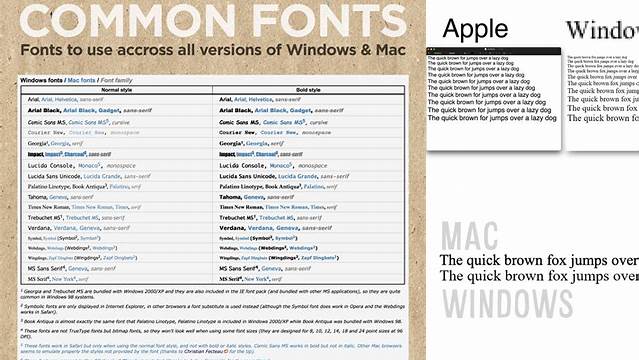
Mac Vs. Windows: Common Fonts For Seamless Design
Hey guys, ever found yourself wrestling with font compatibility issues when switching between a Mac and a Windows machine? It's a common headache, especially for designers and anyone who needs their documents to look consistent across different platforms. Fear not! We're diving deep into the world of common fonts between Mac and Windows, ensuring your text always looks its best, no matter where you open it. Let's break down the essential fonts that bridge the gap and keep your designs looking sharp, no matter the operating system.
Why Font Compatibility Matters
So, why is font compatibility such a big deal, anyway? Imagine you're crafting a stunning presentation on your Mac, meticulously choosing the perfect font to convey your message. You save it, transfer it to a Windows computer, and… bam! The font has been swapped out for something else. The formatting is off, the headings look wrong, and your carefully curated design is a shadow of its former self. It's a total buzzkill, right? This is where understanding common fonts between Mac and Windows becomes super important. It's all about ensuring that the fonts you use are available on both operating systems, guaranteeing your documents and designs appear as intended, no matter the platform. Think of it as a secret weapon for consistent design, avoiding those awkward font substitutions that can disrupt your creative flow.
Font substitutions happen when a computer can't find the specific font used in a document. Instead, it'll replace it with a default font, which usually results in the text looking different. This can lead to a cascade of formatting issues. Spacing might be off, line breaks might change, and the overall aesthetic of your work can be compromised. Using common fonts between Mac and Windows eliminates this problem because both operating systems have these fonts pre-installed or readily available, reducing the likelihood of your carefully crafted design being butchered by font substitutions. This is especially vital for projects that involve collaboration across different platforms, making your documents universally accessible and visually consistent. So, whether you're a graphic designer, a student, or just someone who wants their documents to look great, understanding font compatibility is a key skill.
Moreover, font compatibility extends beyond just aesthetics. It affects readability and the overall user experience. When fonts change unexpectedly, it can impact the way information is presented, potentially confusing readers or diluting the impact of your message. This is particularly critical for professional documents, marketing materials, or any content where visual clarity is paramount. The last thing you want is for your work to appear unprofessional due to font-related issues. Therefore, choosing common fonts between Mac and Windows is a proactive step towards ensuring your content looks polished and professional, no matter where it is viewed. It's about making sure your design choices are respected and that your audience experiences your content as you intended.
The Essential Common Fonts
Alright, let's get down to the nitty-gritty and talk about the common fonts between Mac and Windows that you can rely on. These fonts are your best friends when it comes to cross-platform compatibility. They're generally pre-installed on both operating systems, meaning you're less likely to encounter font substitution issues. Here's a list of the most reliable ones:
Arial
Arial is a sans-serif font, a super versatile choice for body text, headings, and pretty much everything in between. It's a clean, modern font that's easy to read at various sizes, making it perfect for both print and digital media. This is your workhorse font, the one you can always count on. When you are looking for common fonts between Mac and Windows, Arial is usually the go-to for its wide availability and consistent appearance. Arial's clean lines and balanced proportions make it a safe bet for most design projects, ensuring that your text is always clear and legible. It's a great choice when you want a straightforward, professional look.
Times New Roman
Times New Roman, a classic serif font, is often the default choice for academic papers, reports, and other formal documents. It has serifs, which are those little strokes at the ends of the letters that help guide the eye across the page, especially in long blocks of text. If you need to ensure your text has a traditional, somewhat formal feel, then Times New Roman is great because it's one of the common fonts between Mac and Windows. Its timeless design has made it a favorite for decades, and its presence on both Macs and Windows machines means you can trust that your documents will appear as intended. If you're aiming for that professional, scholarly vibe, Times New Roman is your friend.
Courier New
Courier New is a monospace font, meaning each character takes up the same amount of horizontal space. This makes it ideal for code, typewriting simulations, and situations where you need precise alignment. If you are working with code or any text-based document requiring a typewriter feel, Courier New is included in the list of common fonts between Mac and Windows. Its distinctive look is recognizable and widely supported. Because of its monospace design, Courier New is perfect for displaying code or any text where consistent spacing is essential. Also, it is an important feature that helps developers easily spot errors in their code.
Helvetica
Helvetica, a sans-serif font known for its neutrality and legibility, is a design classic. It is considered one of the most widely used fonts in the world. While it may not be pre-installed on all Windows versions, it's usually available or easily downloadable, ensuring that it can be considered one of the common fonts between Mac and Windows. This font’s clean design makes it suitable for a wide range of applications, from logos and signage to body text. Its versatility and widespread use make it a staple for any designer's font library, and its neutral appearance ensures it won't clash with other design elements.
Verdana
Verdana, another sans-serif font, was specifically designed for on-screen readability. It has wider letterforms and generous spacing, making it great for digital content, especially at smaller sizes. Verdana’s friendly and open design helps ensure your text is easy to read on screens, and its inclusion on both Macs and Windows makes it a perfect choice to make the list of common fonts between Mac and Windows. If you need to ensure your text is readable and accessible on a variety of devices, Verdana is a great option. Its design prioritizes readability, making it ideal for websites, presentations, and any application where clarity is key. Verdana's straightforward design ensures a pleasant reading experience, even for extended periods.
Georgia
Georgia, a serif font, is also designed for on-screen readability, featuring slightly bolder strokes than Times New Roman. This is perfect for making your content easily accessible. Like Verdana, it is one of the common fonts between Mac and Windows. Its slightly bolder strokes make it easier to read on screens, while its serif design gives it a touch of formality. Georgia is a solid choice for digital documents, e-books, and websites where a balance of readability and style is required. Its design prioritizes user experience, ensuring that your text is both stylish and easy to consume.
Choosing Fonts: Best Practices
Choosing the right font is essential, but it's not just about picking from the common fonts between Mac and Windows. Here are some best practices to keep in mind:
Prioritize Legibility
First and foremost, your font should be readable. Consider the context of your document and choose a font that's easy to read at the size and on the medium it will be displayed. Bold and italics can be used to emphasize key points, but overusing them can make your text harder to read. When selecting from the options of common fonts between Mac and Windows, always prioritize fonts known for their clarity and readability, particularly for body text.
Consider Your Audience
Think about who will be reading your work and what tone you want to convey. Do you want to project formality or a more relaxed vibe? The choice of font can greatly influence these perceptions. For example, a classic serif font like Times New Roman may be appropriate for formal documents, whereas a sans-serif like Arial or Verdana can be more suitable for informal communications. Using the list of common fonts between Mac and Windows, find the font that aligns with your audience and message.
Limit Font Choices
Stick to a few fonts for consistency. Using too many different fonts can make your work look cluttered and unprofessional. Having a limited selection is better for the overall design. Choose a font for your headings, another for your body text, and maybe one for emphasis. This will create a clean and cohesive look. If you use the common fonts between Mac and Windows, you can still maintain a consistent brand identity without clashing design elements.
Test Your Designs
Always test your designs on different devices and operating systems to make sure your fonts display correctly. Review your work across various platforms and ensure that the chosen common fonts between Mac and Windows perform as you expect them to. Check the spacing, alignment, and overall appearance to confirm that your design translates well. This crucial step can help prevent any potential formatting issues or unexpected changes in appearance.
Avoiding Font Substitution
Font substitution is a designer's worst enemy. These tips help you avoid it:
Embed Fonts
When creating PDFs or documents, consider embedding your fonts. This means the font files are included within the document itself, so the recipient doesn't need to have the font installed on their system. This is super helpful when you're using fonts that aren't common fonts between Mac and Windows.
Convert to Outlines
In graphic design software, you can convert your text to outlines. This turns the text into a vector graphic, so it will always render correctly, no matter what fonts are installed on the receiving computer. This is a common practice when you have designs with fonts that are not common fonts between Mac and Windows and you want them to look the same way.
Use Web Fonts
For websites, use web fonts. These are fonts specifically designed to be displayed on the web and are loaded from a server, ensuring consistent appearance across all browsers and devices. When using the list of common fonts between Mac and Windows for web design, consider using them as fallback fonts, which ensures a consistent look if the web font fails to load.
Conclusion: Staying Font-Friendly
Understanding common fonts between Mac and Windows is crucial for anyone working across different operating systems. Using these reliable fonts ensures your documents and designs look consistent and professional, and it also makes collaboration easier. By sticking to these guidelines, you'll be well on your way to creating beautiful, readable content that looks great, regardless of the platform. So, next time you're faced with a font dilemma, remember these tips, and happy designing, guys!